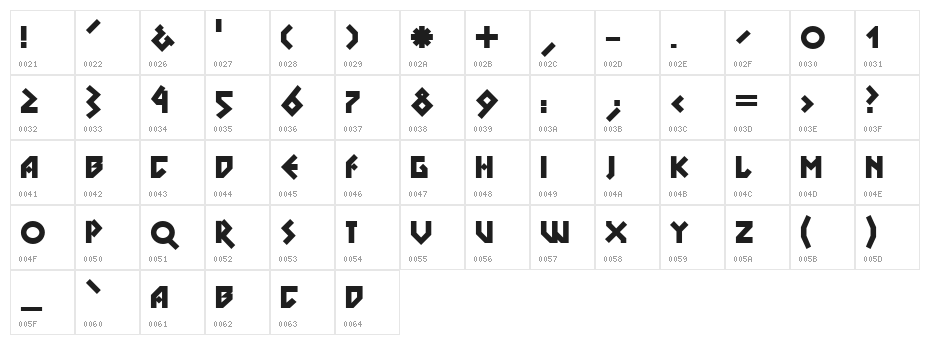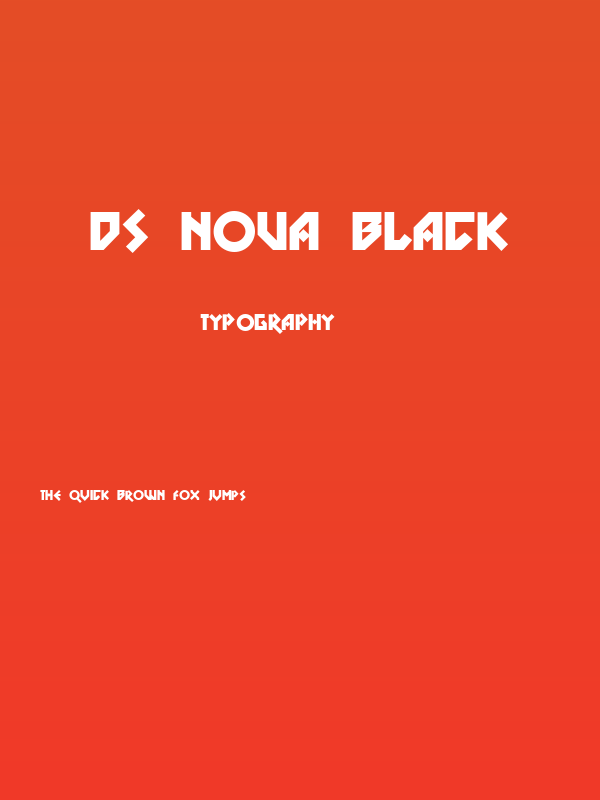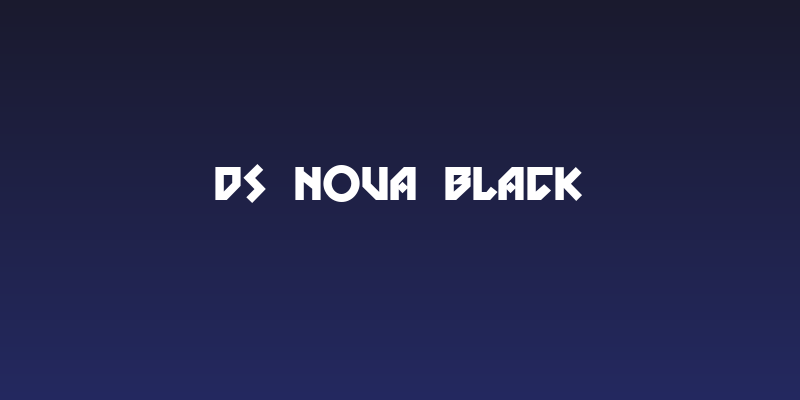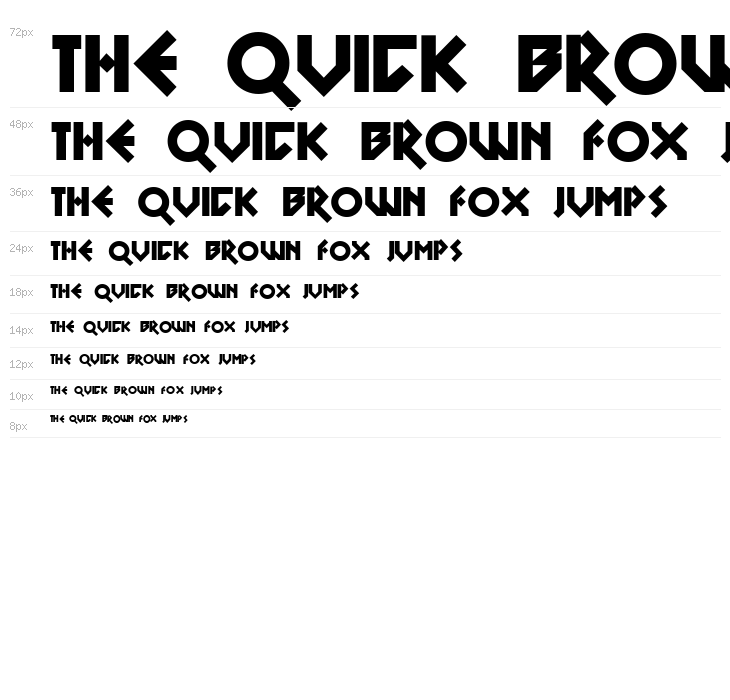
DS Nova Black Font
DS Nova Black Description
This font features a bold and geometric style with sharp angles and a futuristic aesthetic. The characters are constructed with a combination of straight lines and pointed edges, creating a dynamic and striking appearance. The uppercase and lowercase letters maintain a consistent design, emphasizing a strong visual impact. Numbers and special characters follow the same angular theme, ensuring uniformity across all glyphs. This font is ideal for projects that require a modern and edgy look, such as technology branding, video game titles, or sci-fi themed designs.